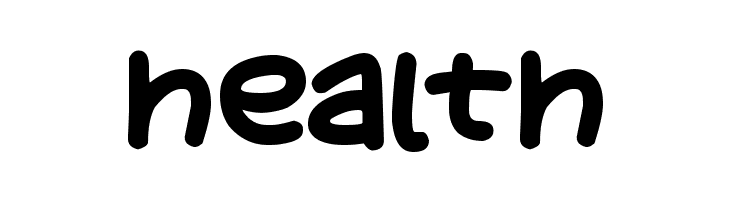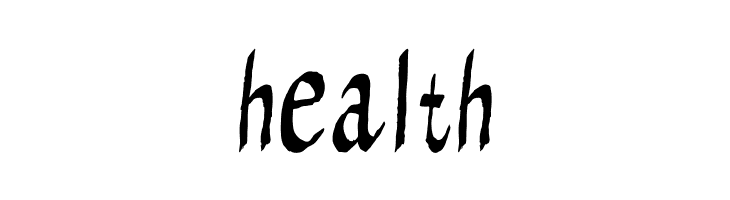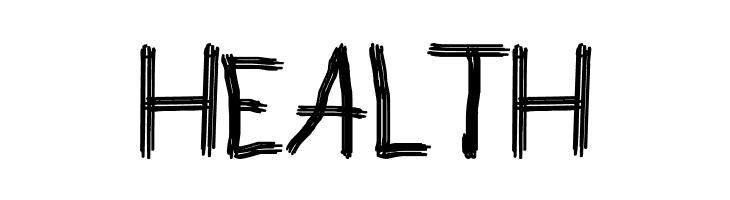
A lively, expressive handwritten script with flowing, cursive letterforms.
A playful, hand-drawn font with bold, rounded characters.
A modern serif font with high contrast and elegant strokes.
A decorative font with intricate line patterns and an art deco influence.
A lively, cursive script font with interconnected letters and a natural handwriting style.
A bold, expressive handwritten font with fluid strokes and a playful style.
A dynamic, cursive script font with elegant, flowing letterforms.
A bold, modern sans-serif font with a clean and professional appearance.
A sleek, modern italic font with smooth curves and clean lines.
A modern, sans-serif font with clean lines and uniform stroke width.
A modern, bold, and italicized font with a sleek and dynamic appearance.
A bold, italicized font with outlined characters and a modern aesthetic.
A bold, outlined font with a modern and clean design.
A playful and elegant script font with fluid, connected letterforms.
An elegant, cursive script font with a flowing, handwritten style.
A bold, slanted handwritten font with a dynamic and friendly style.
A bold, playful font with a hand-drawn, energetic style.
A bold, robust font with thick strokes and slight curvature, ideal for impactful designs.
A bold, italic font with strong, dynamic strokes and a modern style.
A lively, flowing script font with elegant, elongated letterforms.
A bold, brush script font with a textured, hand-painted look.
A bold, dynamic font with a playful and energetic style.
A bold, decorative font with high contrast and ornate details.
A bold, angular font with a modern Gothic style.
A dynamic and expressive handwritten font with fluid strokes and artistic flair.
A cursive, modern font with flowing, interconnected letters and a light, airy feel.
A playful, handwritten font with tall, narrow letters and a casual, dynamic style.
A graceful and elegant script font with flowing cursive style.
A playful, handwritten font with bold, irregular strokes and a casual, dynamic feel.
A bold, modern sans-serif font with thick, uniform strokes.
( Alexander Pravdin )
A bold, condensed sans-serif typeface with a modern and clean design.
( Alexander Pravdin )
A bold, modern font with a clean and geometric design.